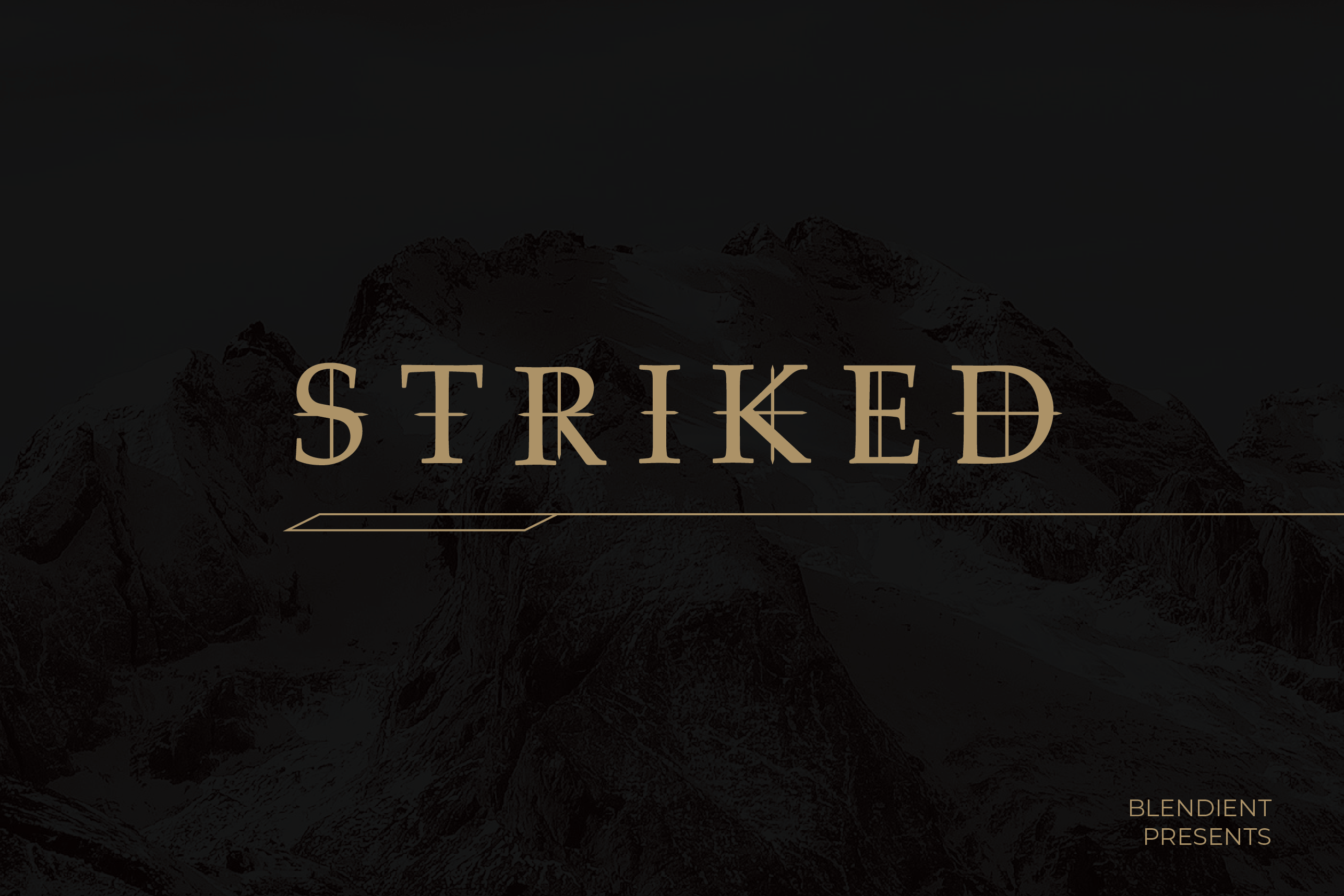
Striked Font
Striked is an upper Case serif font with strokes.Like my previous font its inspired by my back brain thoughts, and implements the strong piercing impact in the design. Its wide range of stylistic use that works perfectly for headlines, logos, posters, packaging, T-shirts, postcards and much more. Furthermore This font is an out of the box typeface that is perfectly fit for minimalist, modern and Futuristic design.